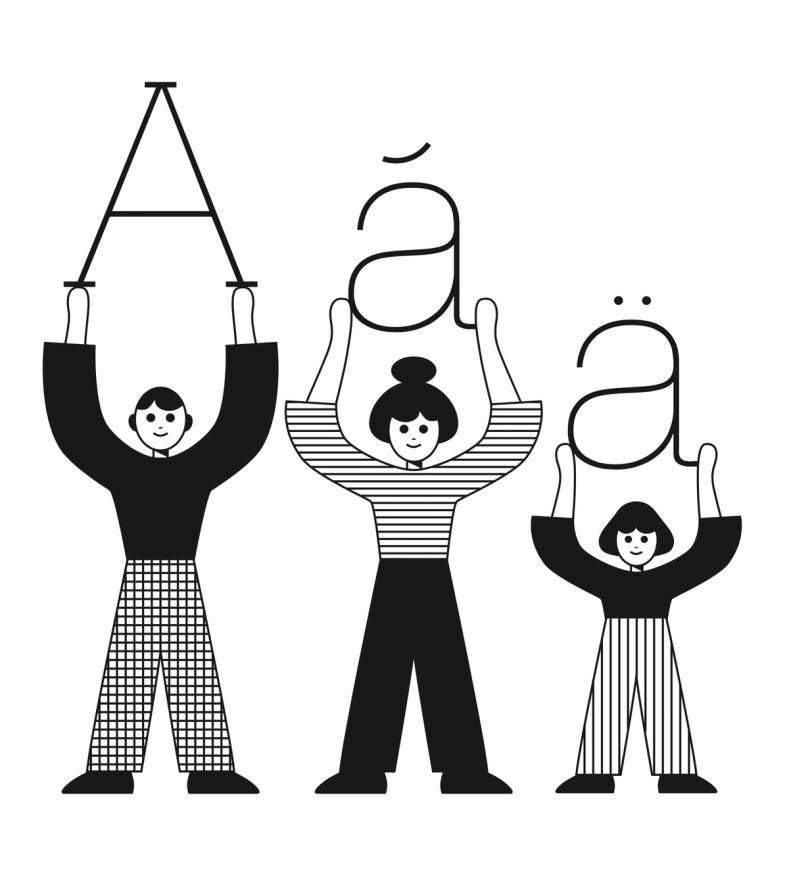
Alphabet
An alphabet is a type of writing system that uses a set of letters to represent a language visually. Each letter represents a different sound, and when combined together following a certain order specific to each language, they form syllables, words, and sentences.
Across the world and throughout history, many languages have used alphabetical systems (Greek, Arabic, Hebrew, etc.). As of today, the Latin script is being used for the largest number of languages, with many different sets of alphabets, varying in number of letters depending on the needs of the language (i.e., both English and Spanish use the Latin script, but they have different alphabets).